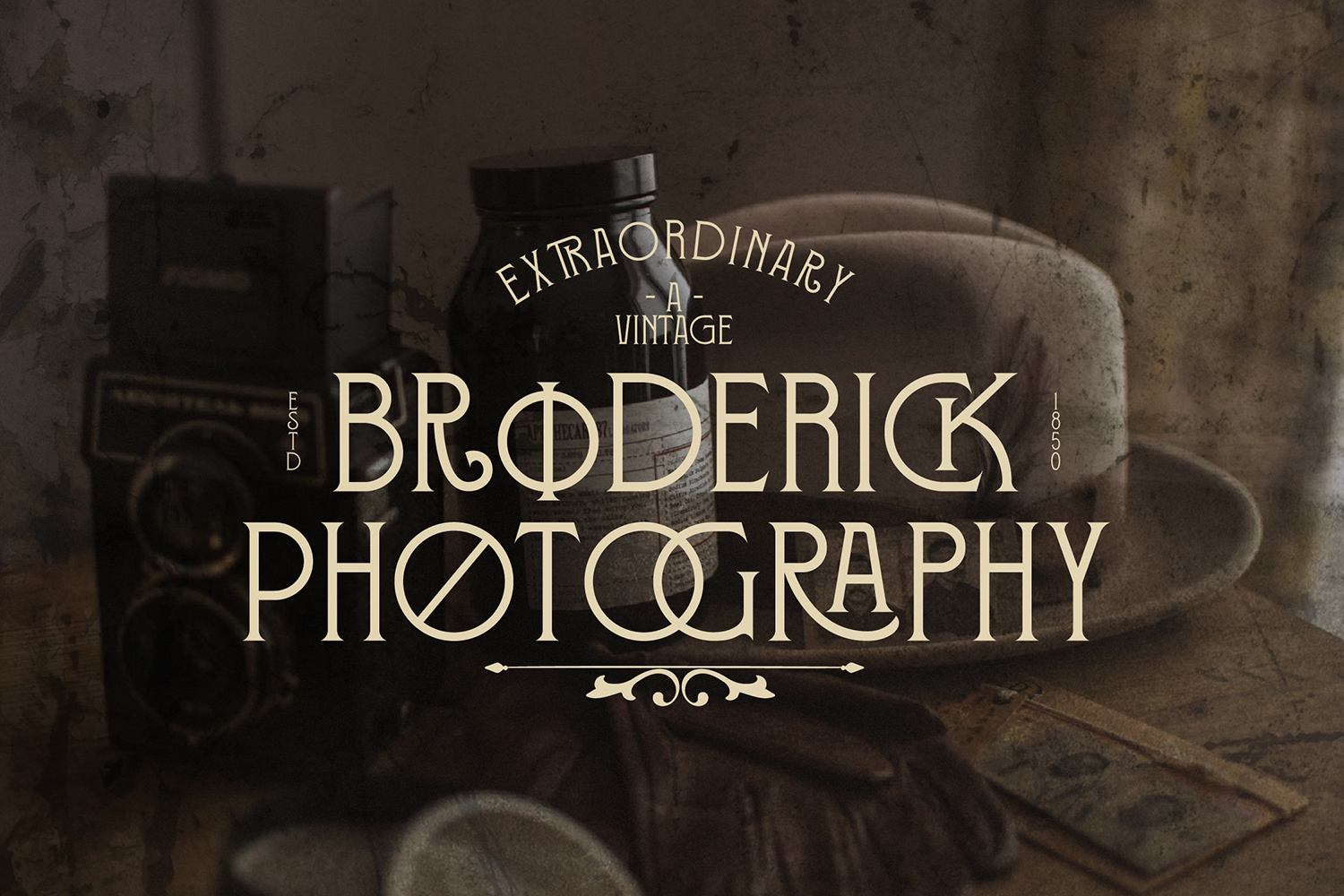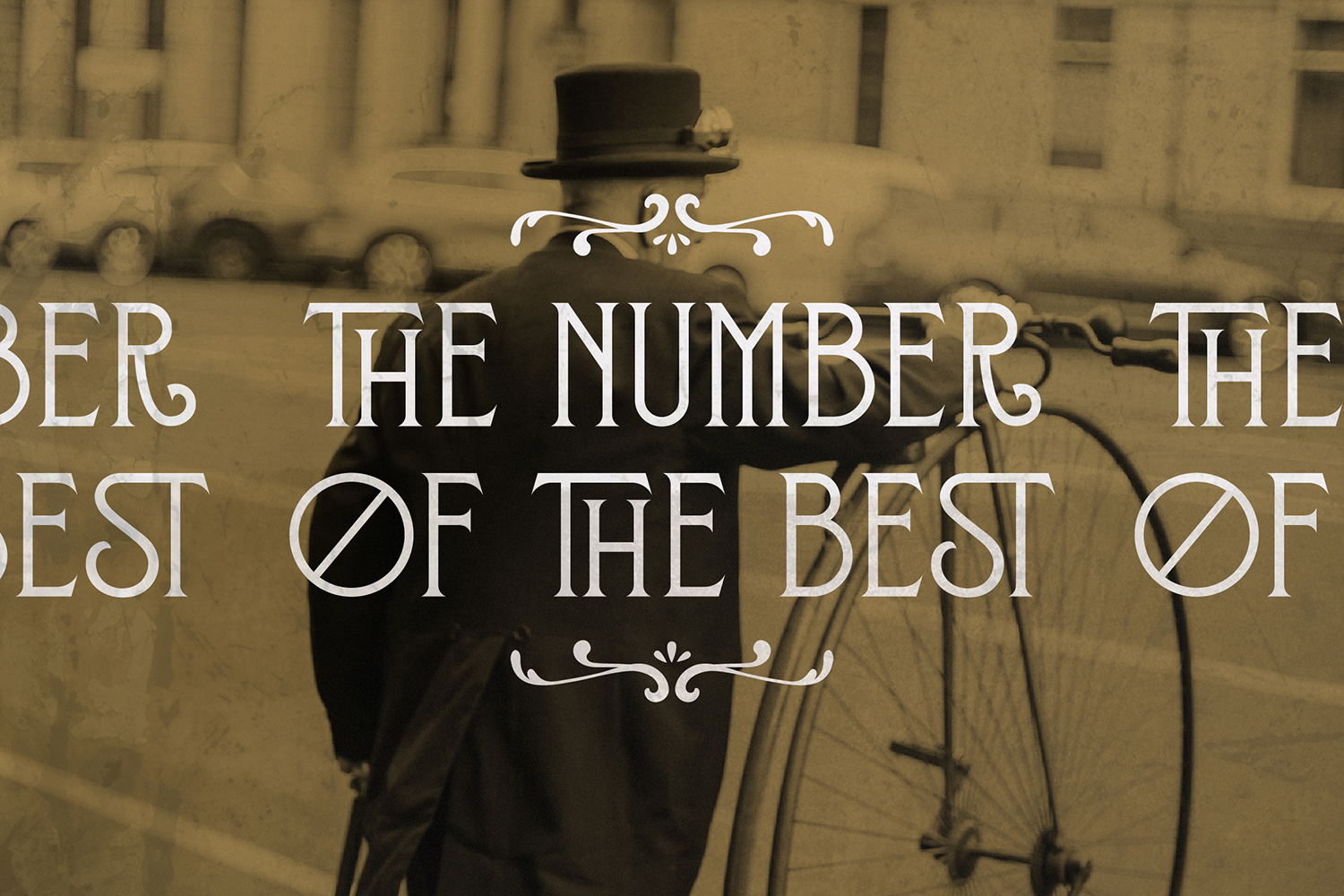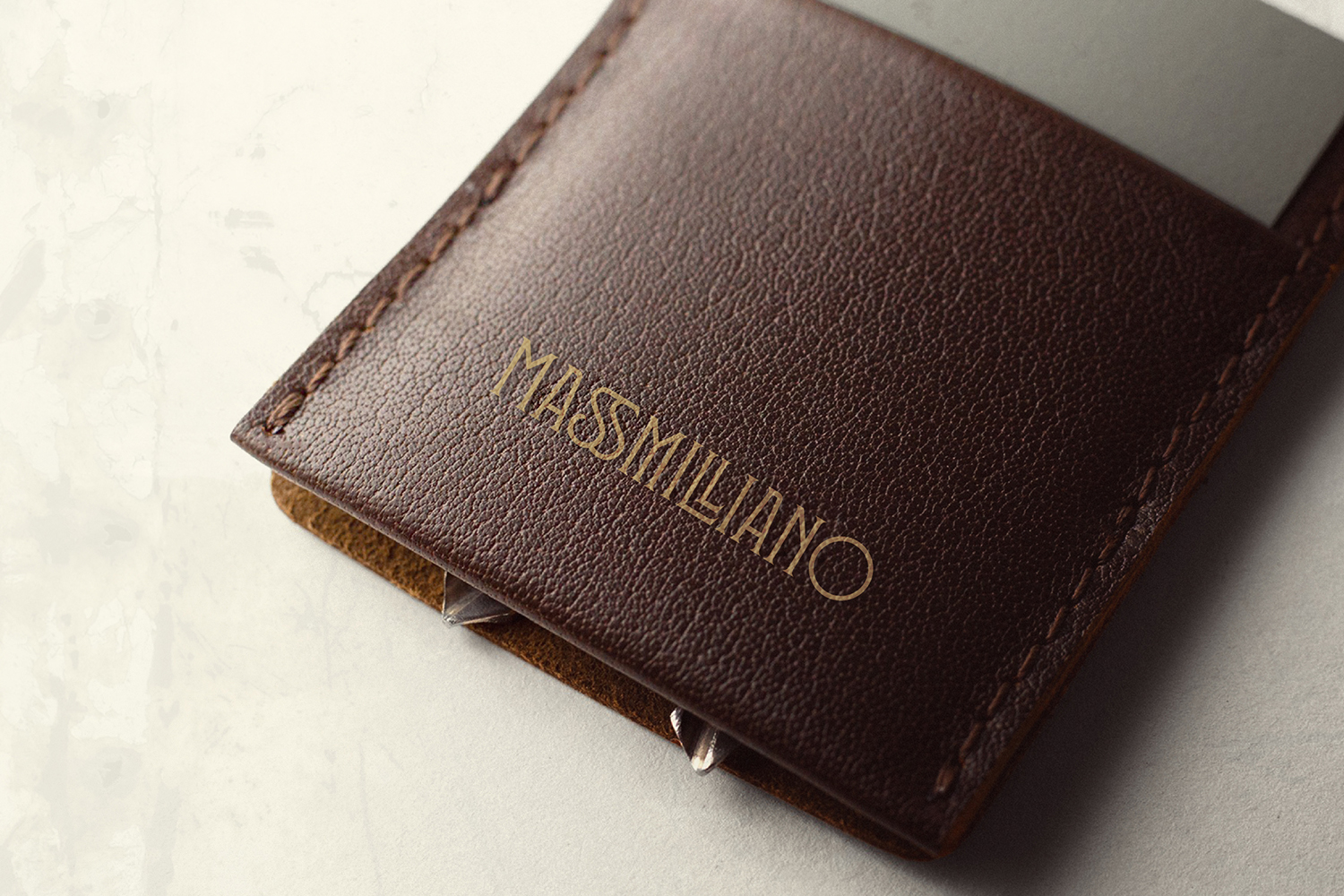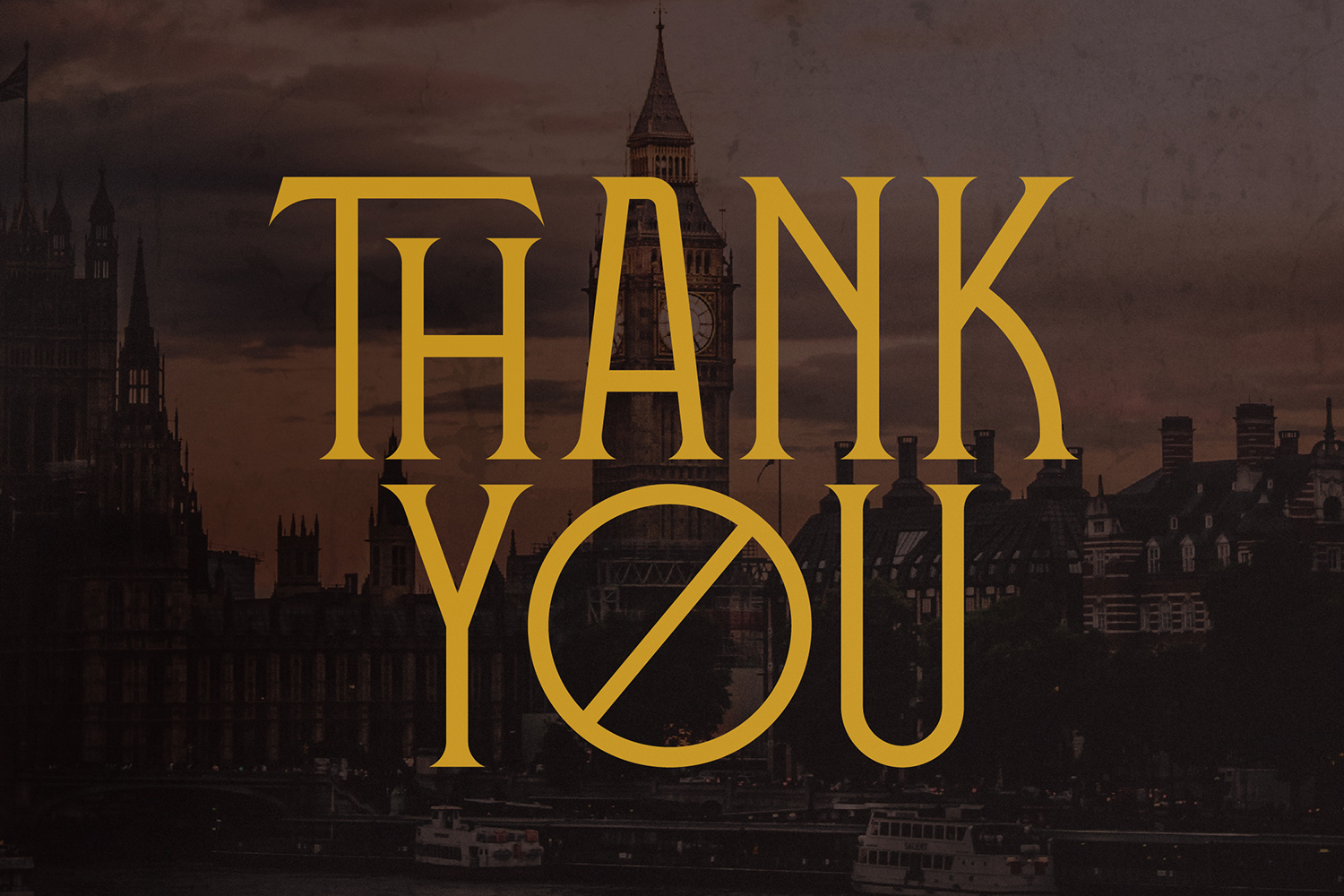
Requema Free Font
Requema Free Font is a modern and classic serif typeface that has a unique style & modern look. This typeface is perfect for an elegant & luxury logo, book or movie title design, fashion brand, magazine, clothes, lettering, quotes, and so much more. This free typeface was designed by a talented Zeenesia Studio. If you like it don’t forget to check out the full version.